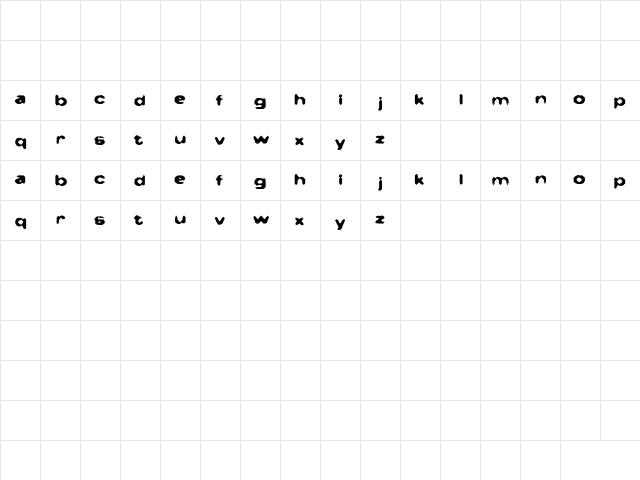
No Man's Font Regular Font Preview
No Man's Font Regular
No Man's Font Regular Font Details
Design Context for No Man's Font Typeface
No Man's Font is a composed and adaptable typeface that performs quietly and consistently across a wide range of design contexts.